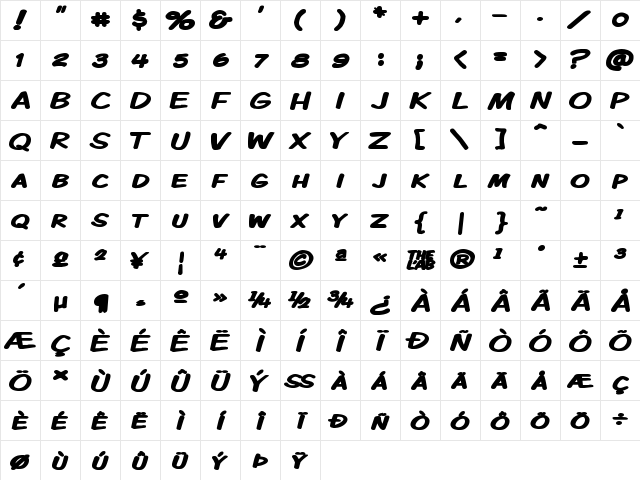
Komika Display Kaps Wide Bold
Designer: WolfBainX
Complete Komika Display Kaps Wide Bold glyph index. Displaying only characters natively supported by Komika Display Kaps Wide Bold font.
Design Context for Komika Display Kaps Wide
Komika Display Kaps Wide is built around its visual character rather than neutral utility - its distinctive forms are designed to make an impression at display sizes. Its bold stroke weight gives it real presence on the page.
Font Pairing: Pair with a clean neutral sans-serif for body copy to let Komika Display Kaps Wide's character lead without overwhelming the composition.
Pro Tip: Use Komika Display Kaps Wide exclusively at display sizes - it was designed to be seen, not read at length. Let a neutral companion handle body copy.